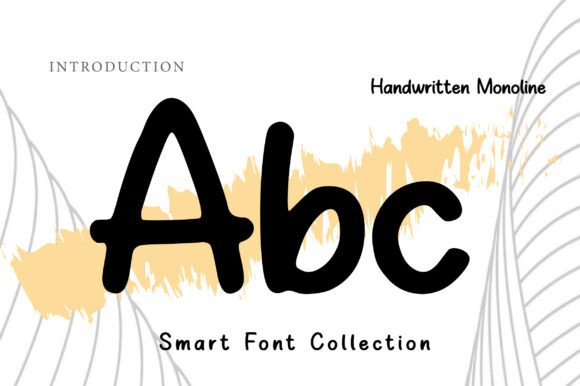
Introduction to Handwritten Monoline Font
Handwritten Monoline is a clean and friendly handwritten font created with a smooth single-stroke (monoline) style.
Its natural writing flow, soft rounded ends, and balanced spacing make it look casual, modern, and highly readable This font is perfect when you want a personal handwritten touch without messy textureโsimple, neat, and versatile.
Key Features of Handwritten Monoline Font
Why Choose Handwritten Monoline Font?
Handwritten Monoline Font offers exceptional quality and versatility, making it a valuable addition to your design toolkit. Whether you’re creating for personal projects or commercial use, Handwritten Monoline Font delivers professional results.